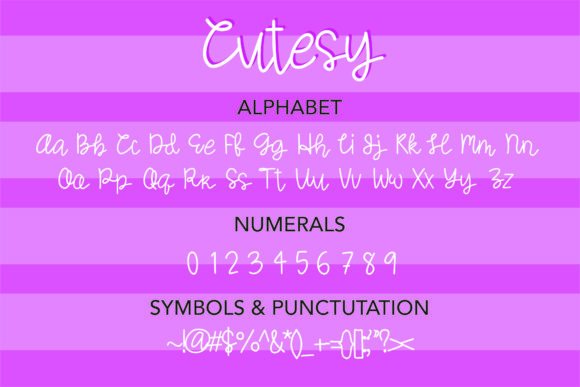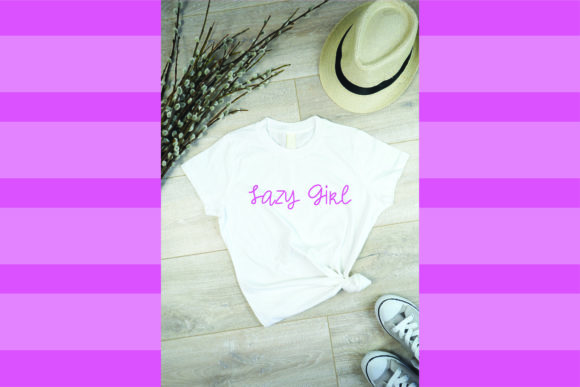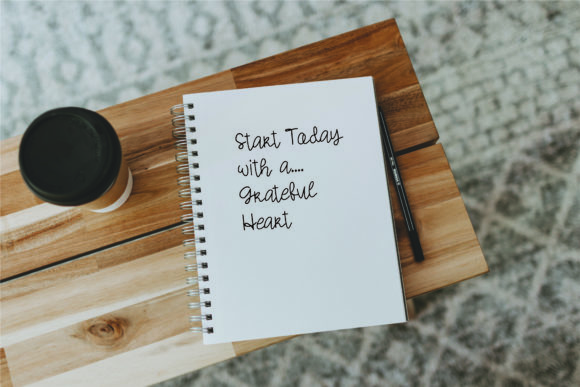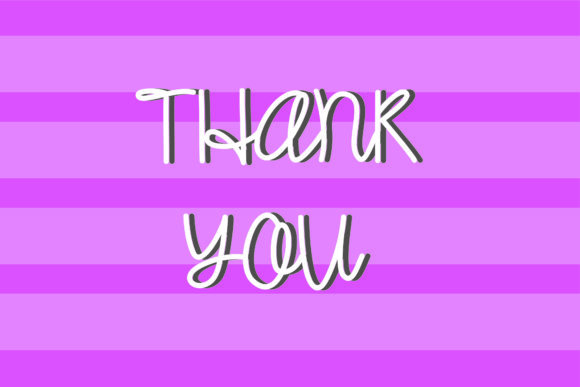
Cutesy Font: The Ultimate Guide to This Dainty and Thin Lettered Script Font
Are you a designer or crafter looking for a font that can add a touch of elegance and whimsy to your projects? Look no further than Cutesy Font! This beautiful, dainty, and thin lettered script font is perfect for a wide range of designs, from invitations and greeting cards to branding and packaging. In this article, we’ll take a closer look at Cutesy Font, its features, and how you can use it to take your designs to the next level.
What is Cutesy Font?
Cutesy Font is a unique and natural script font that is characterized by its thin and delicate lettering. Its elegant and whimsical style makes it perfect for designs that require a touch of sophistication and playfulness. Whether you’re creating a wedding invitation, a child’s birthday card, or a brand identity, Cutesy Font is sure to impress.
Key Features of Cutesy Font
- Dainty and thin lettered: Cutesy Font features delicate and thin lettering that is perfect for designs that require a touch of elegance and sophistication.
- Natural and unique style: This font has a unique and natural style that sets it apart from other script fonts.
- Versatile: Cutesy Font can be used for a wide range of designs, from invitations and greeting cards to branding and packaging.
- Easy to read: Despite its delicate nature, Cutesy Font is easy to read, making it perfect for designs that require a clear and legible font.
How to Use Cutesy Font in Your Designs
Cutesy Font is incredibly versatile, and its uses are only limited by your imagination! Here are a few ideas to get you started:
- Wedding invitations: Cutesy Font is perfect for wedding invitations, adding a touch of elegance and sophistication to your design.
- Greeting cards: This font is also great for greeting cards, adding a personal and whimsical touch to your designs.
- Branding and packaging: Cutesy Font can be used to create beautiful and unique brand identities, from logos to packaging.
- DIY projects: If you’re a crafter or DIY enthusiast, Cutesy Font is perfect for adding a personal touch to your projects, from signs to banners.
Tips for Working with Cutesy Font
Here are a few tips to keep in mind when working with Cutesy Font:
- Use it sparingly: While Cutesy Font is beautiful, it can be delicate and may not be suitable for large blocks of text. Use it sparingly to add emphasis and elegance to your design.
- Pair it with other fonts: Cutesy Font pairs well with other fonts, such as bold sans-serif fonts. Experiment with different pairings to find the perfect combination for your design.
- Experiment with colors: Cutesy Font looks beautiful in a variety of colors, from soft pastels to bold brights. Experiment with different colors to find the perfect hue for your design.
Cutesy Font is a beautiful and versatile script font that is perfect for designers and crafters looking to add a touch of elegance and whimsy to their projects. With its delicate and thin lettering, natural and unique style, and ease of use, Cutesy Font is sure to become a favorite in your design arsenal. So why wait? Download Cutesy Font today and start creating beautiful and unique designs that are sure to impress!